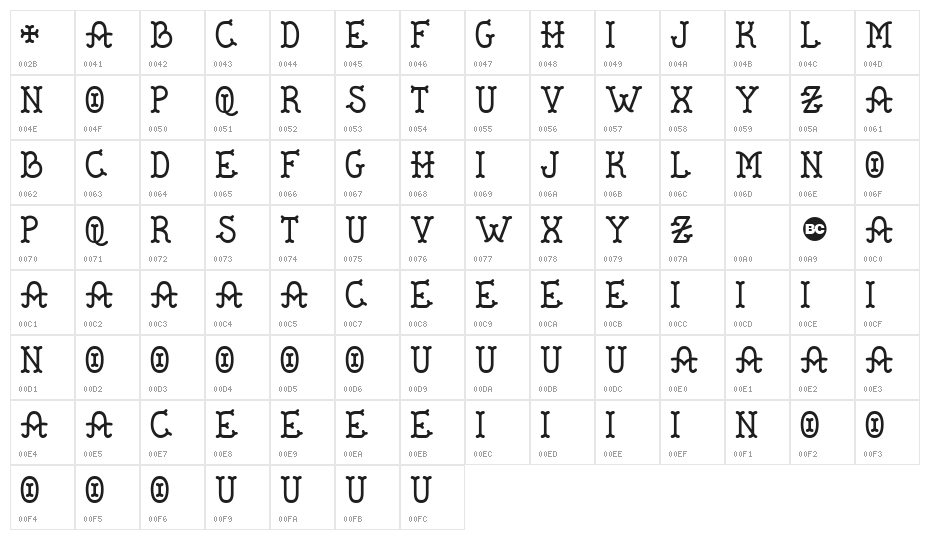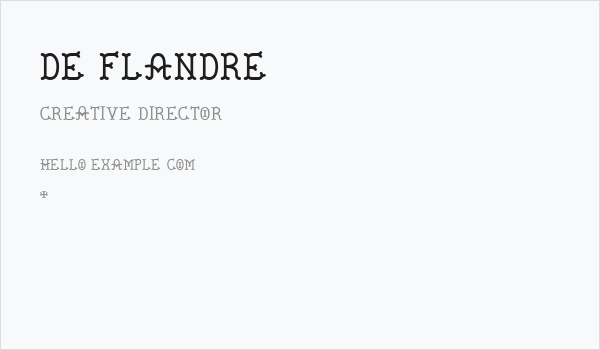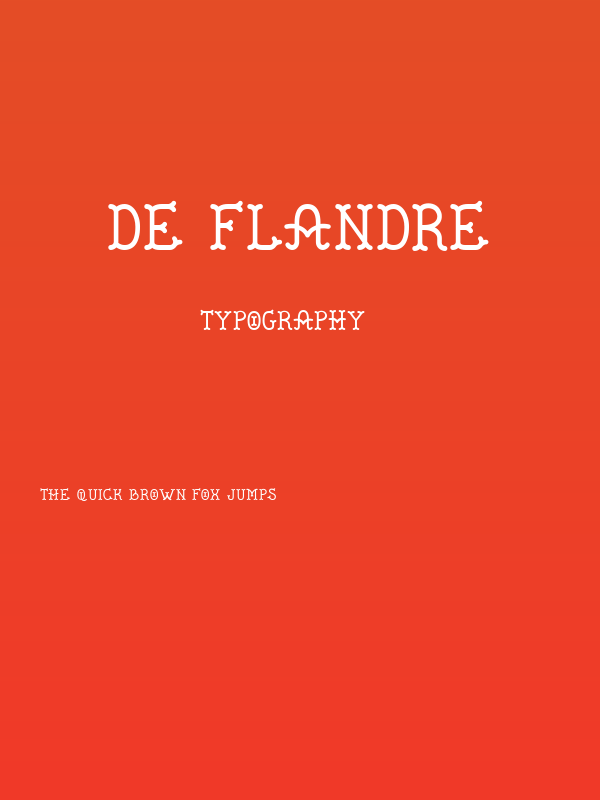
De Flandre Font
De Flandre Description
This font features a unique blend of vintage and decorative elements, characterized by its ornate serifs and intricate detailing. The uppercase letters are bold and commanding, with a distinct flair that adds a touch of elegance and sophistication. The lowercase letters maintain the same decorative style, ensuring consistency throughout. The numbers and special characters are equally ornate, making them stand out in any design. This font's intricate design is perfect for projects that require a touch of classic elegance and a hint of nostalgia.
| Proposed Projects | Ideal for wedding invitations, vintage-themed posters, branding for luxury products, and decorative book covers. |